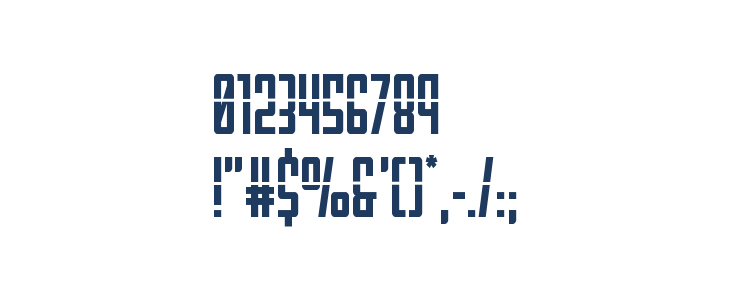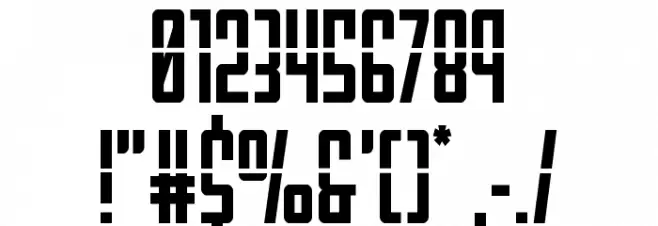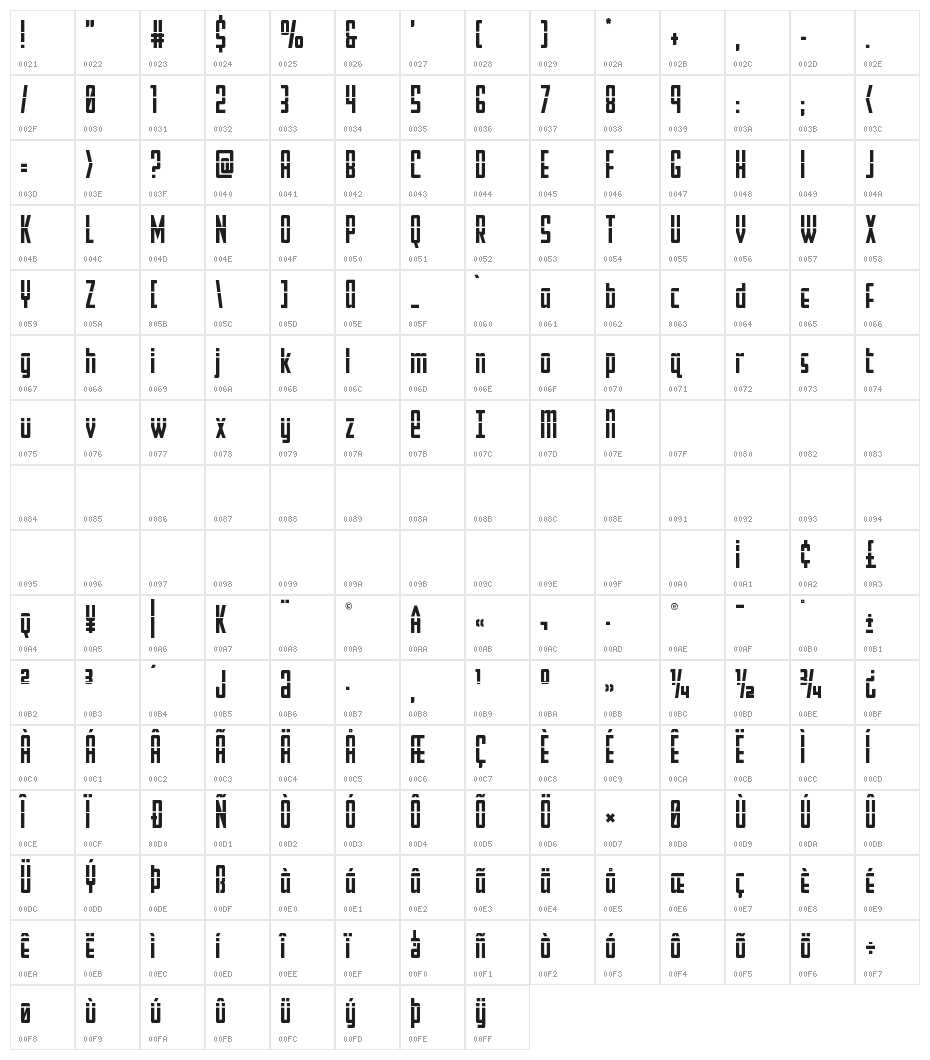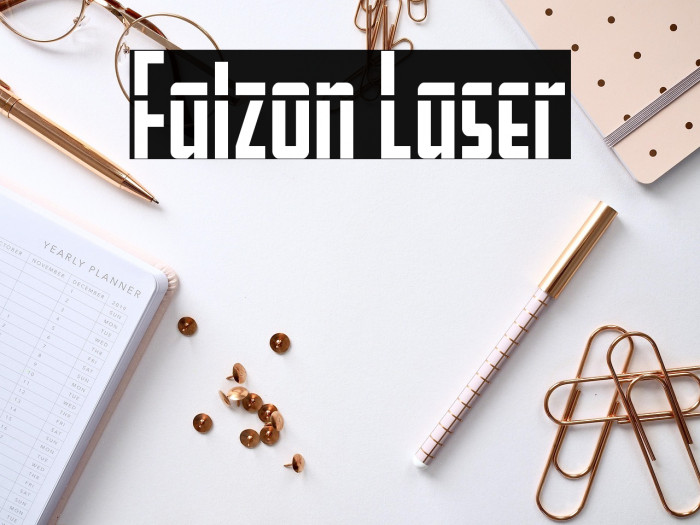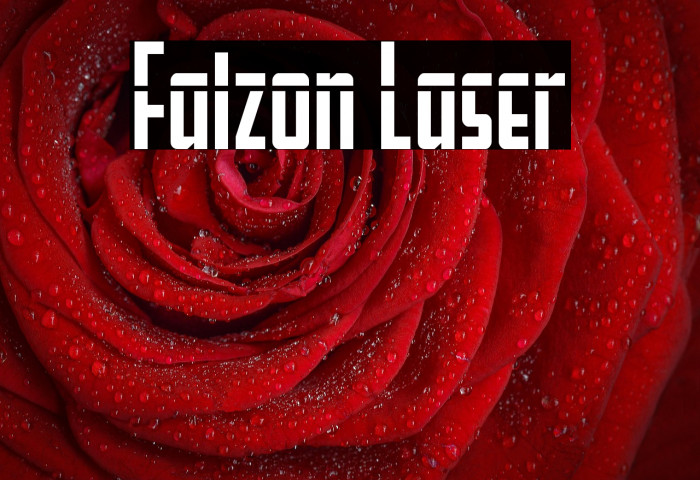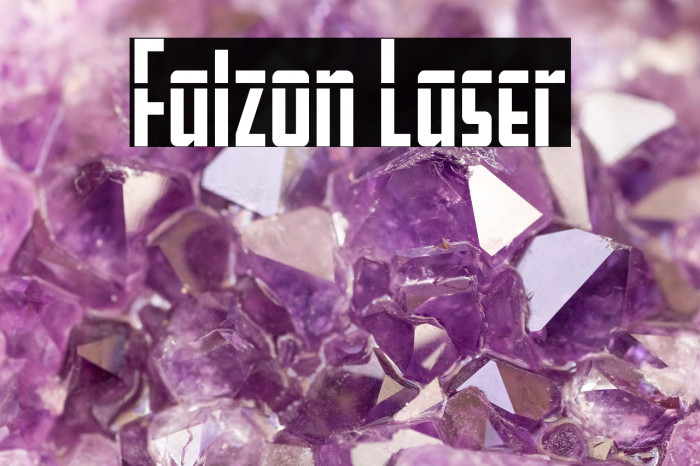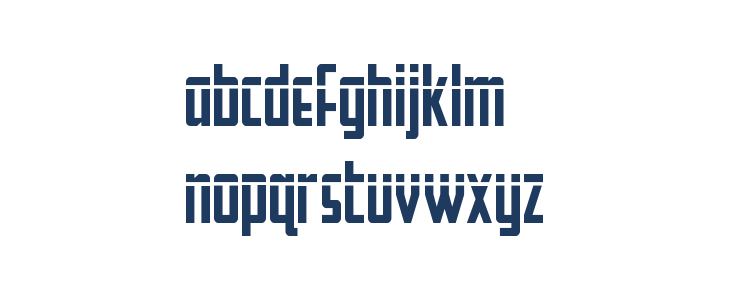
Falzon Laser Font
Falzon Laser Description
This font features a bold and striking design with a futuristic and geometric aesthetic. The characters are constructed with sharp angles and clean lines, giving it a modern and edgy appearance. The uppercase and lowercase letters maintain a consistent style, with a strong emphasis on vertical and horizontal strokes. The numerals and special characters follow the same design principles, ensuring uniformity across the typeface. Its distinct style makes it suitable for attention-grabbing headlines and display purposes.